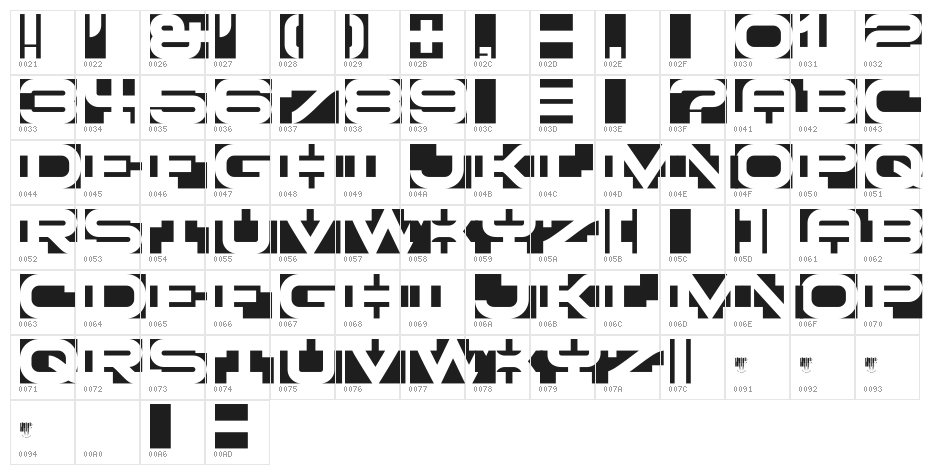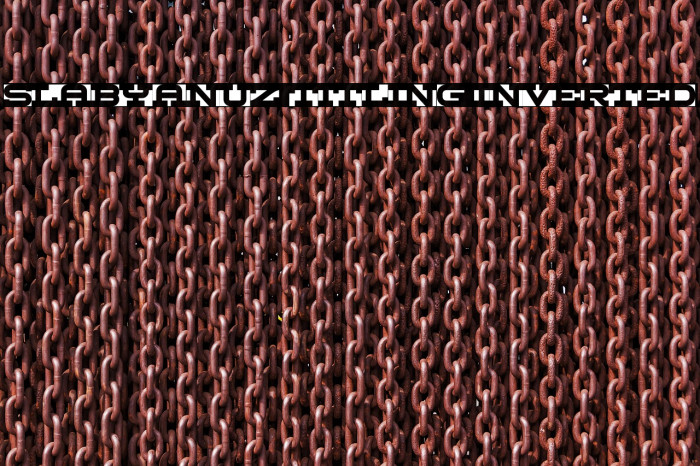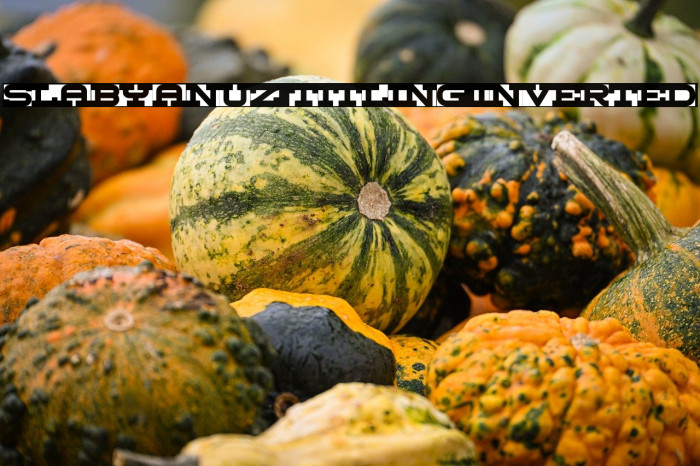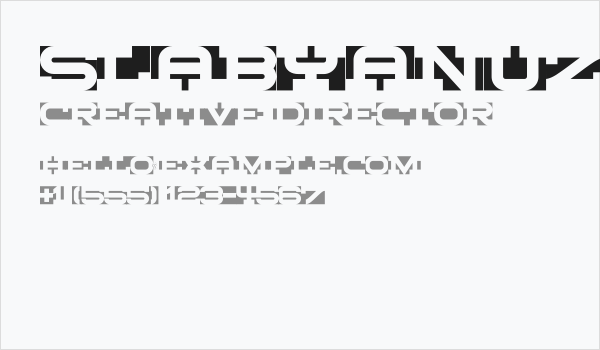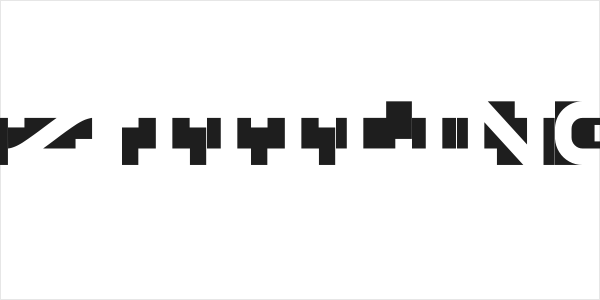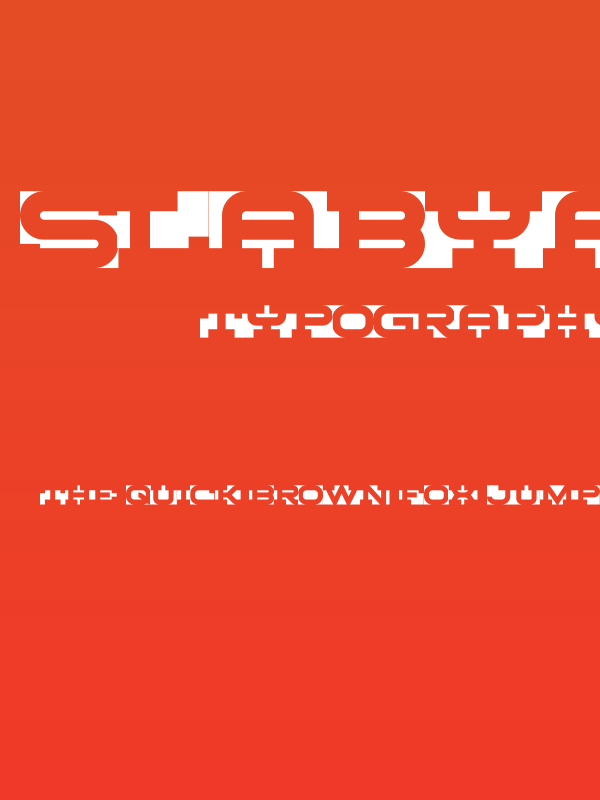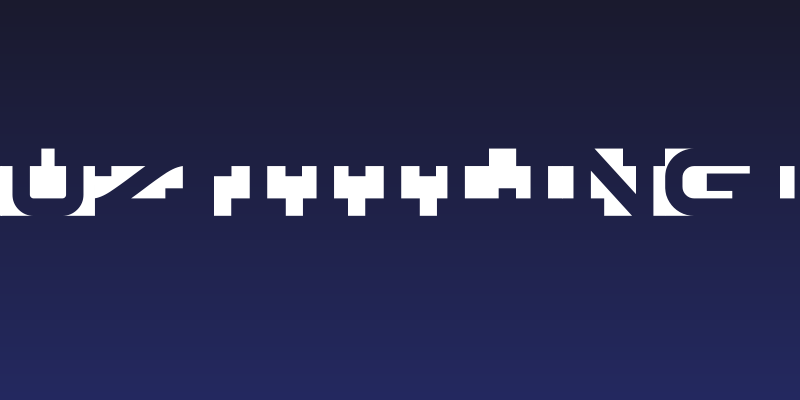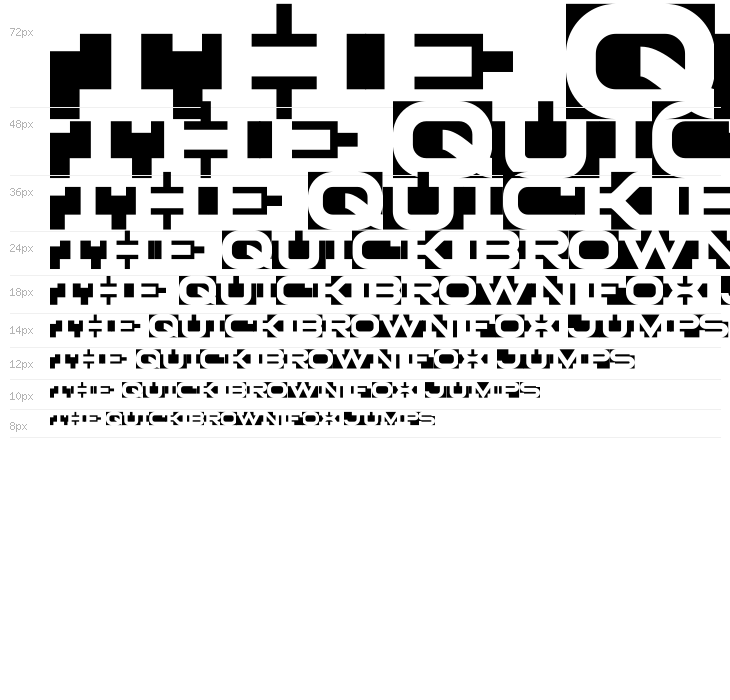
Slabyanuz titling inverted Font
Slabyanuz titling inverted Description
This font features a bold and striking design with a unique, inverted style that creates a visually impactful appearance. The characters are constructed with thick, solid strokes and sharp angles, giving them a modern and edgy look. The use of negative space is prominent, adding to the font's distinctive aesthetic. Each letter and number is crafted with precision, ensuring readability while maintaining its artistic flair. The special characters are equally bold, complementing the overall design. This font is ideal for projects that require a strong visual statement.